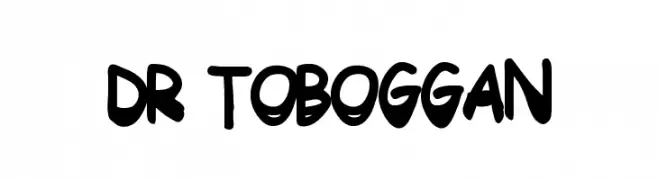
A bold, distressed font with a rugged, vintage aesthetic.
A bold, distressed font with a grunge effect, perfect for impactful designs.
A bold, distressed font with a grunge aesthetic, perfect for impactful designs.
A bold, angular font with a heavy metal aesthetic and sharp, geometric design.
A bold, graffiti-inspired font with sharp, angular strokes.
An edgy, graffiti-inspired font with sharp, angular lines and dramatic strokes.
An edgy, graffiti-inspired font with sharp, angular lines and a rebellious style.
A bold, graffiti-inspired font with dynamic, angular strokes and an urban feel.
A bold, graffiti-inspired font with sharp, angular lines and an urban aesthetic.
A tall, narrow font with a distressed, vintage texture.
A playful, handwritten font with a bold, dynamic style and slight slant.
A playful handwritten font with a youthful and energetic vibe.
A playful, hand-drawn font with a whimsical and childlike style.
A playful, thin, italicized font with a hand-drawn, energetic style.
A playful, handwritten italic font with bold strokes and a lively style.
A playful, handwritten font with a quirky and informal style.
A playful, handwritten font with an italicized, dynamic style.
A bold, distressed stencil-style font with an industrial feel.
A bold, distressed font with a grungy, textured appearance.
A decorative font with bold, striped characters and a modern aesthetic.
A bold, distressed font with a rugged, vintage appearance.
A bold, graffiti-inspired font with sharp, angular lines and dynamic strokes.
A bold, edgy font with sharp, angular lines and a dynamic, brush-like appearance.
A bold, distressed brush-style font with a dynamic and rugged appearance.
A bold, distressed brush script font with a dynamic and textured appearance.
A bold, distressed, industrial-style font with a rugged appearance.
A bold, futuristic font with a distressed, grunge texture.
A hand-drawn, expressive font with irregular, organic strokes.
A distressed, grungy font with erratic, splattered strokes and a chaotic aesthetic.
A bold, graffiti-inspired font with sharp, angular lines and a rebellious aesthetic.
A chaotic, jagged font with a raw, hand-drawn appearance.
A bold, distressed font with rough, brush-like strokes for an edgy look.
A bold, geometric font with a futuristic and modern aesthetic.